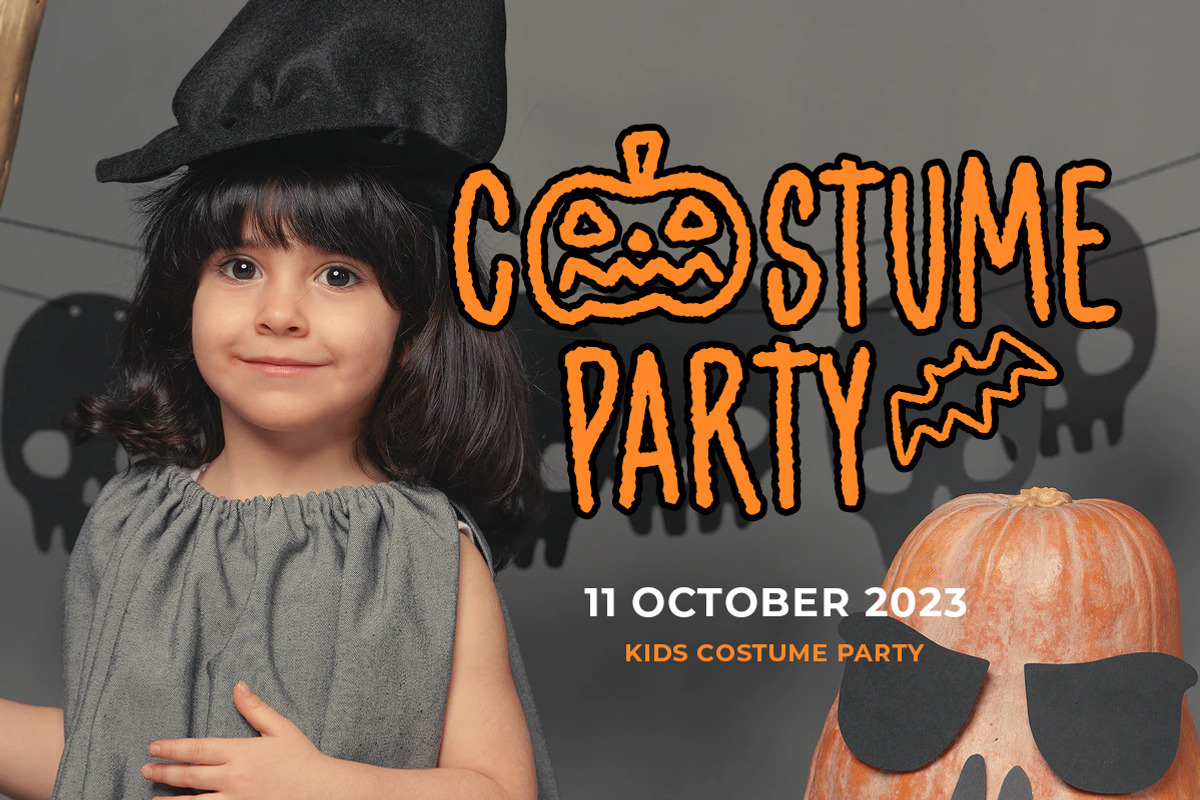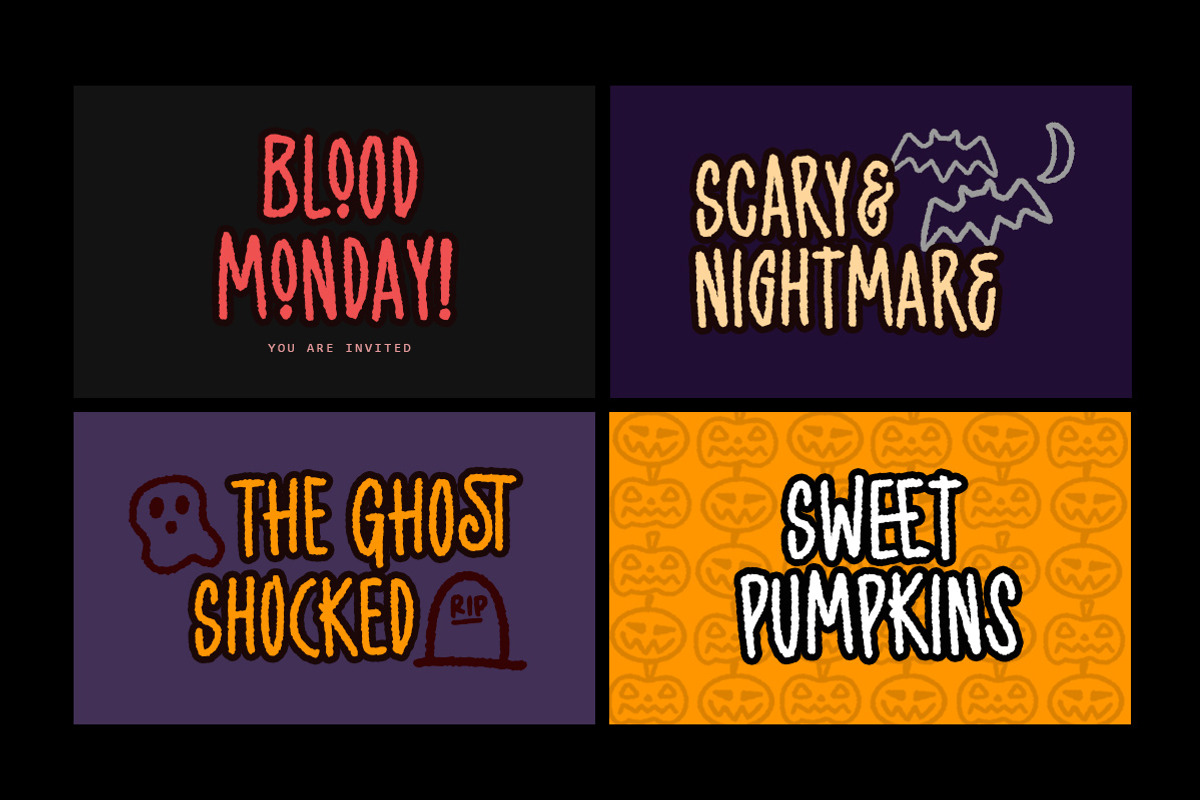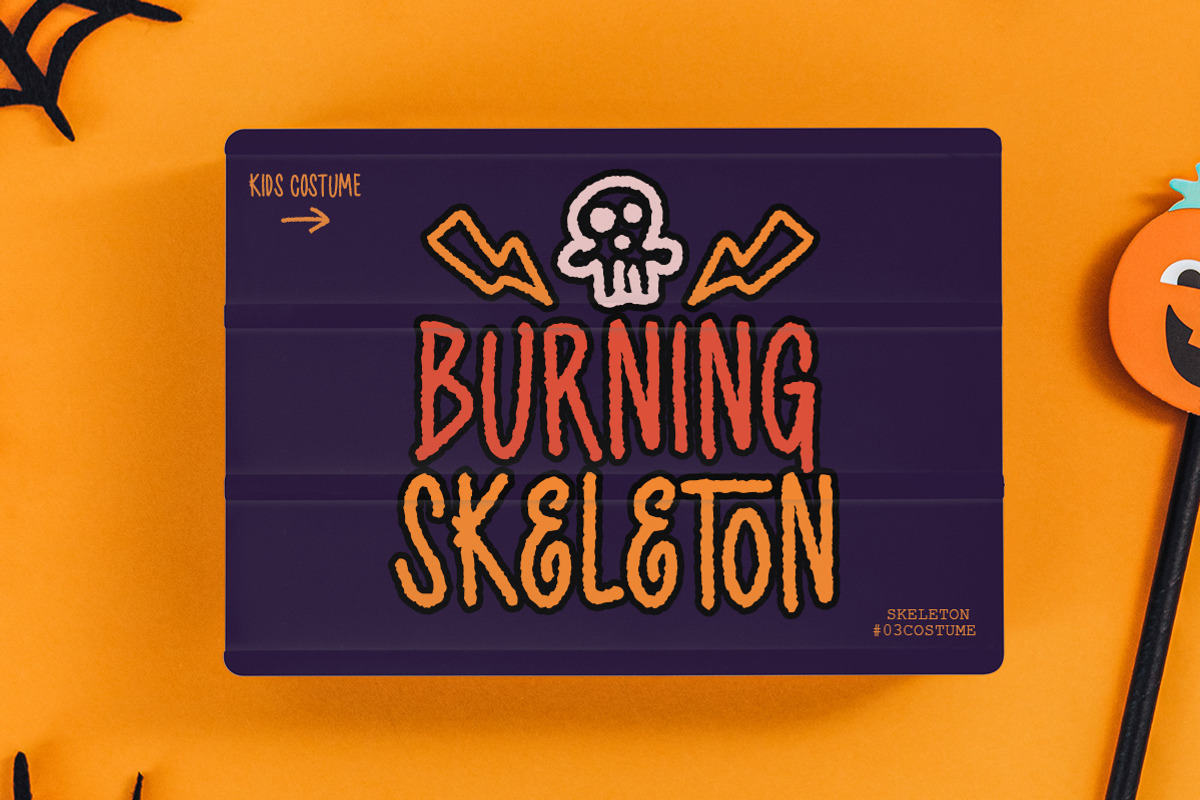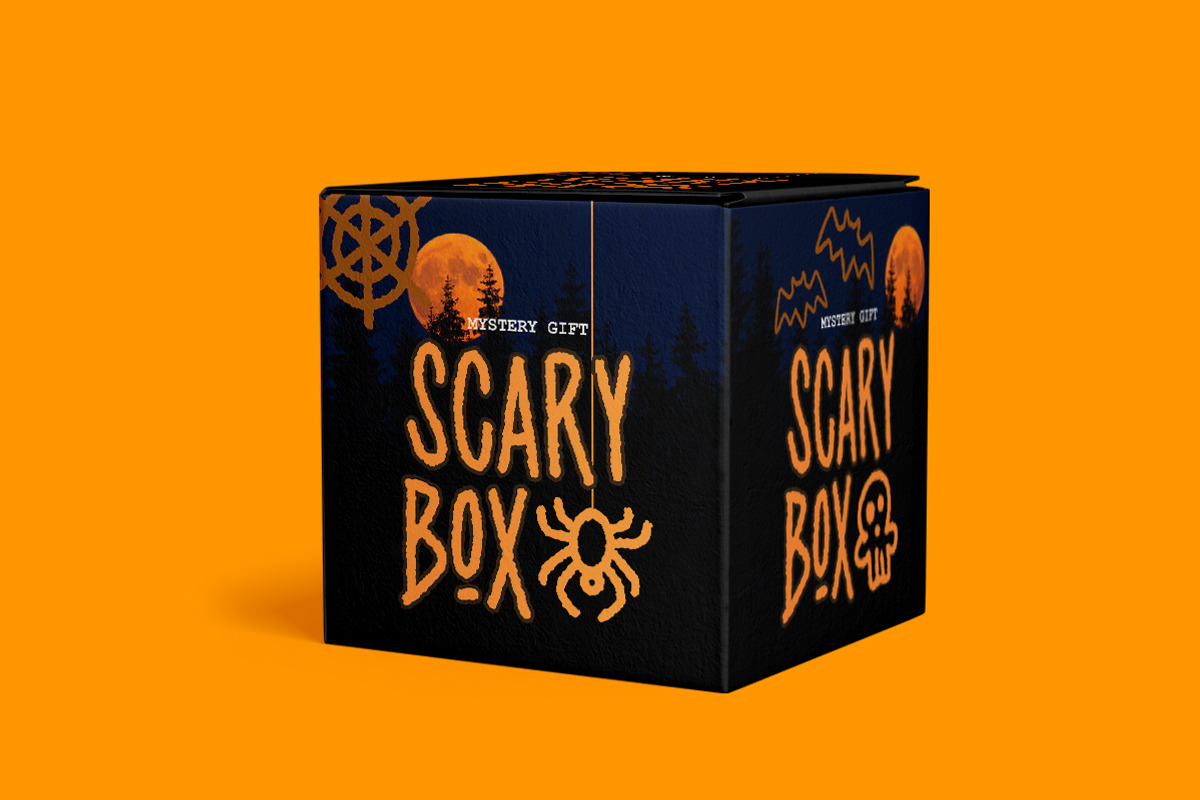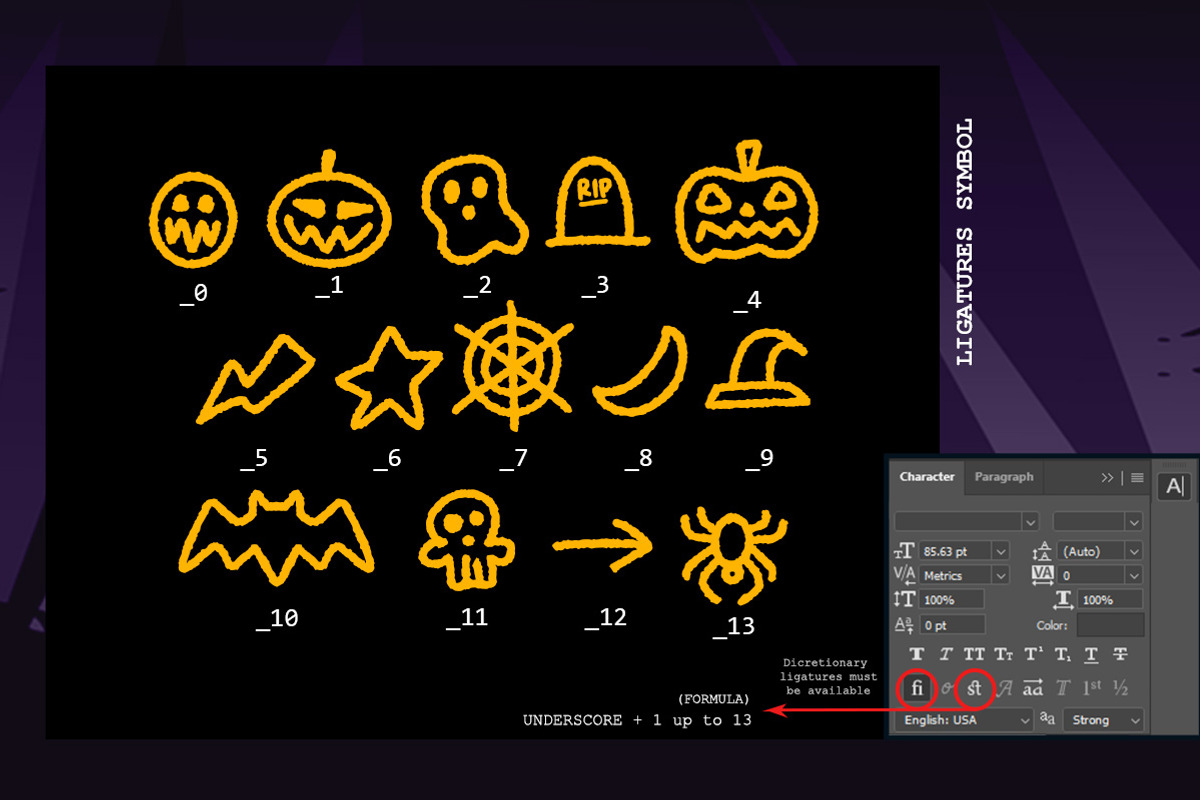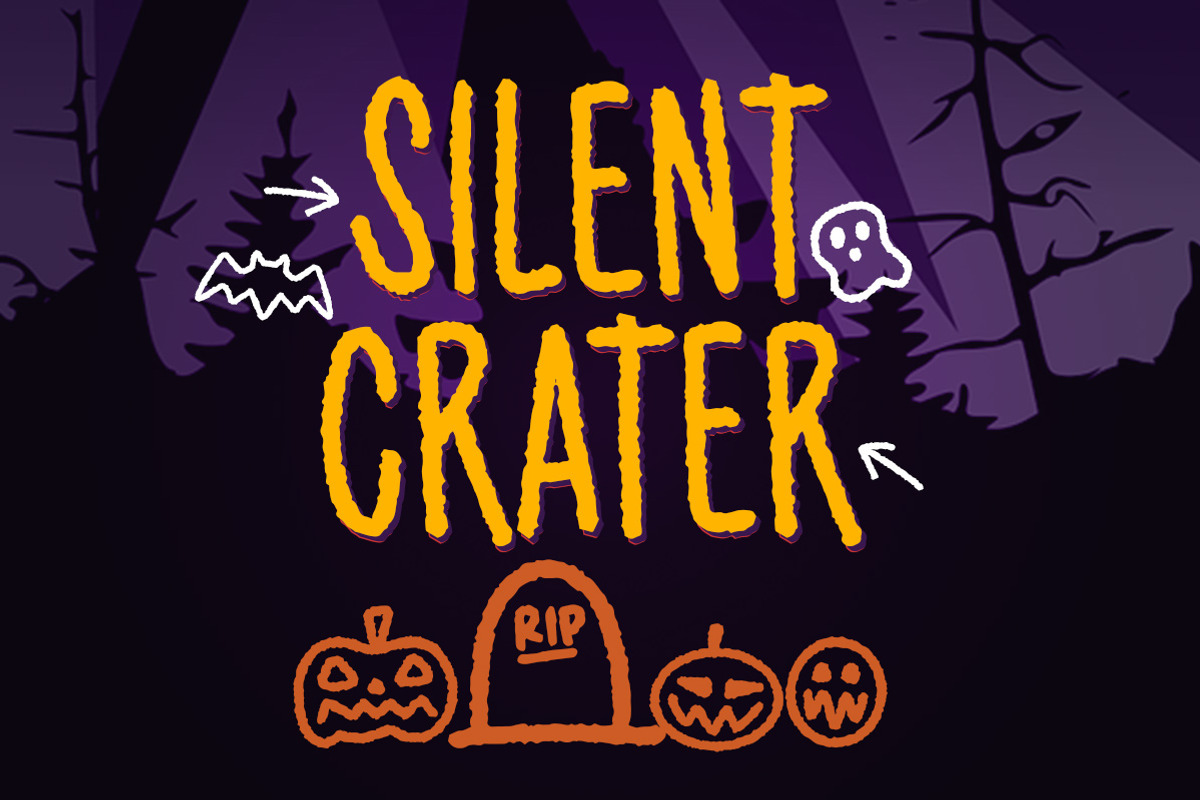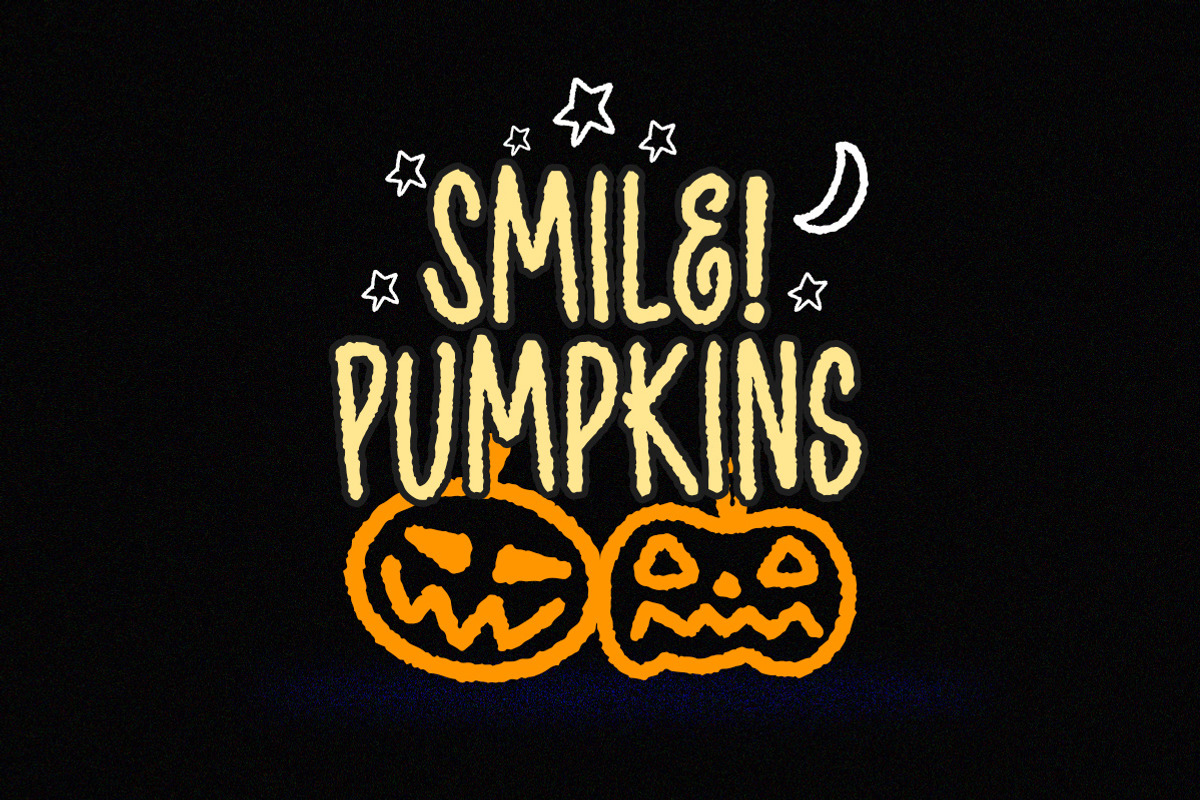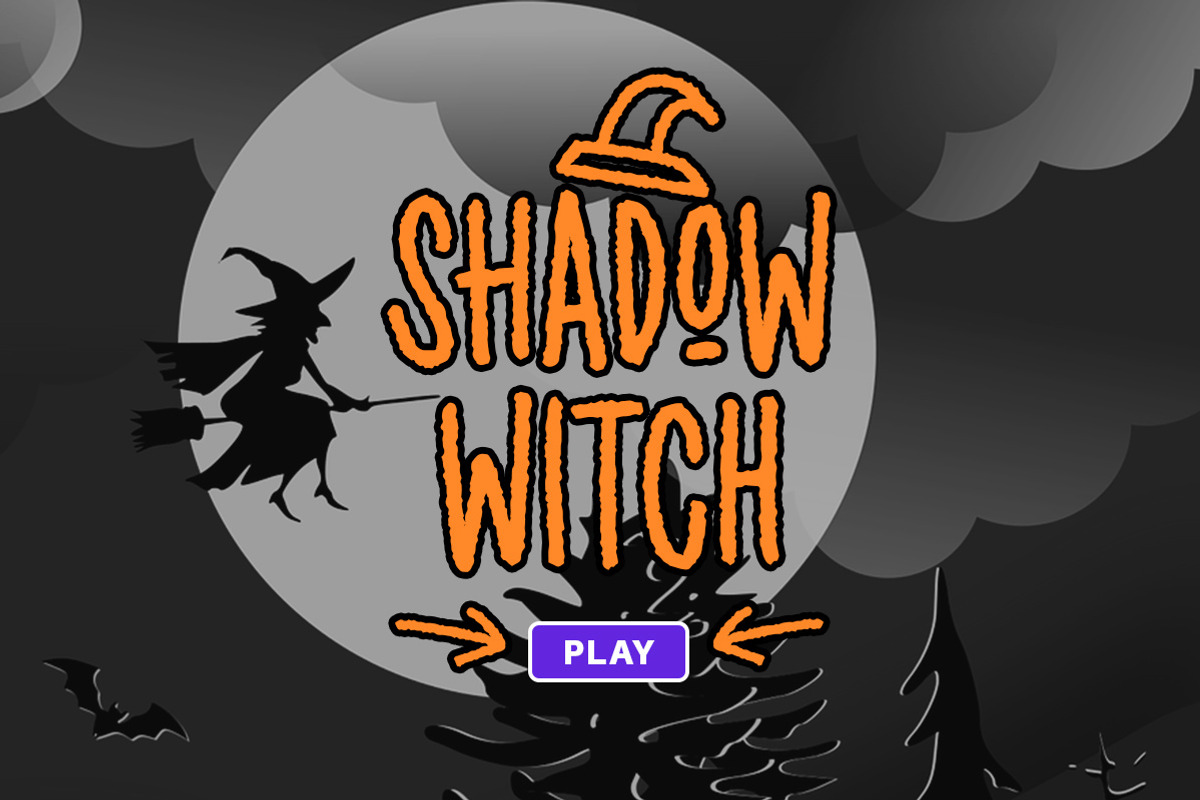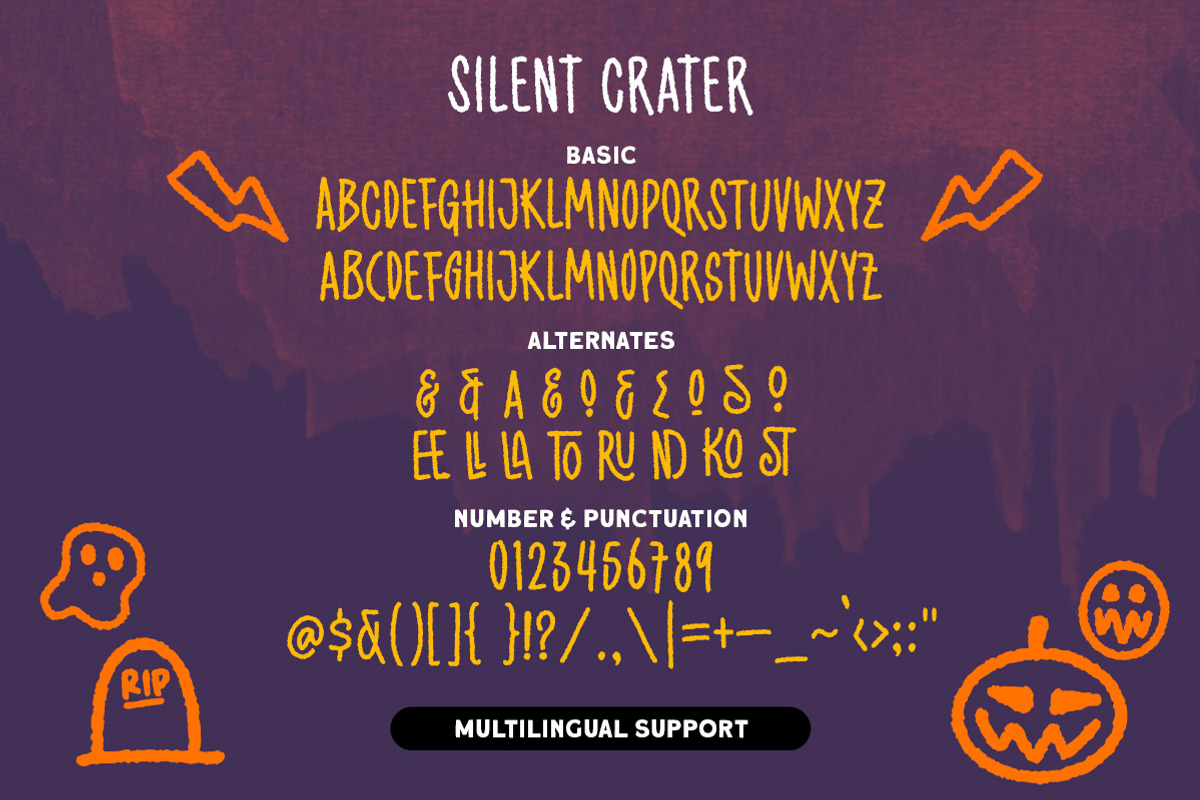
Silent Crater - Spooky Font
Silent Crater is a font which is can be used in happy and fun concept, but still looks great in dark / horror / spooky / scary theme. This type of font perfectly made to be applied especially in movies or storybook children which is need a standout font, and the other various formal forms such as invitations, labels, logos, magazines, books, greeting / wedding cards, packaging, fashion, make up, stationery, novels, labels or any type of advertising purpose.
- alternates